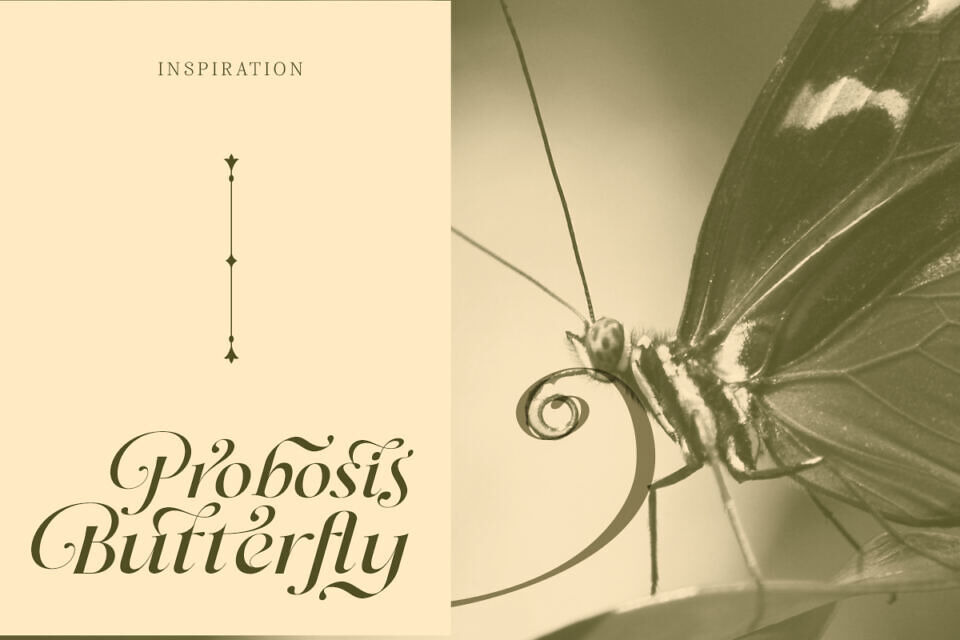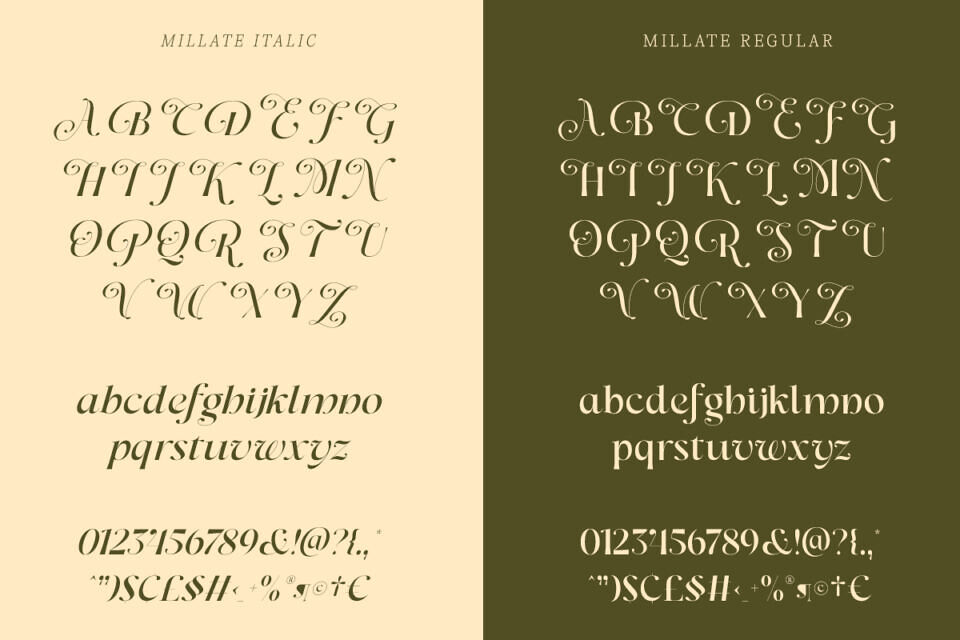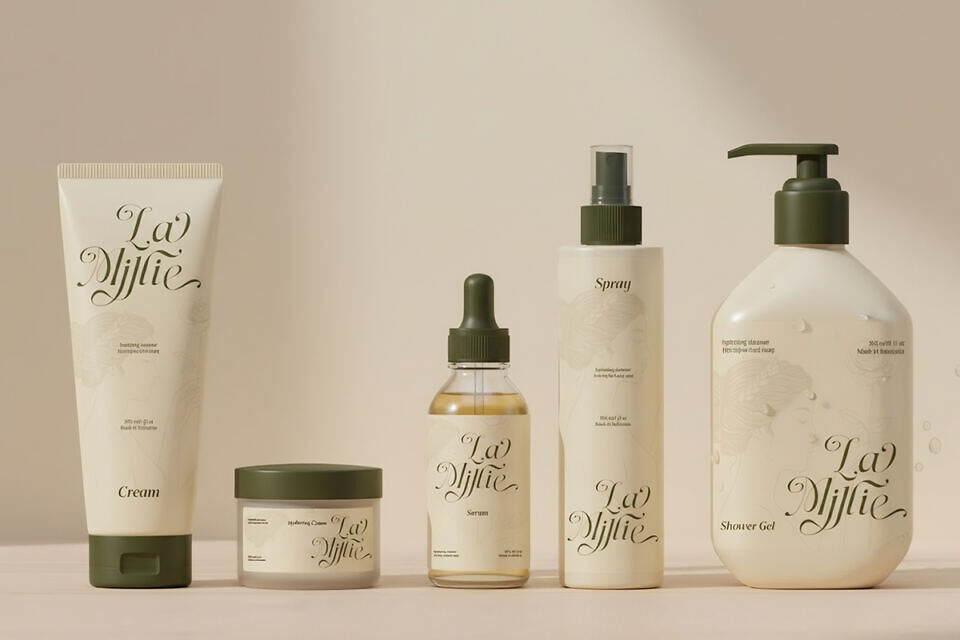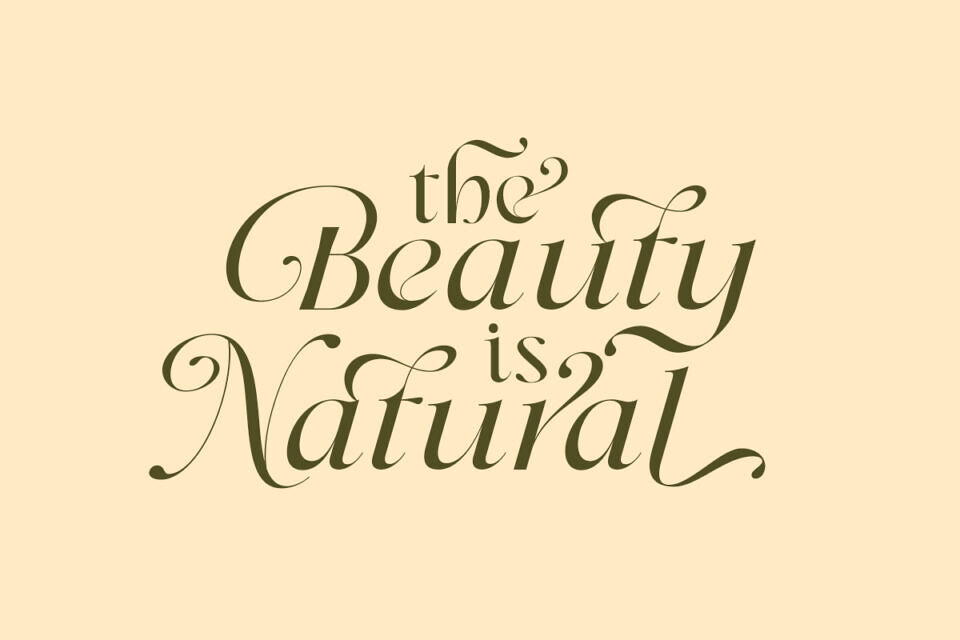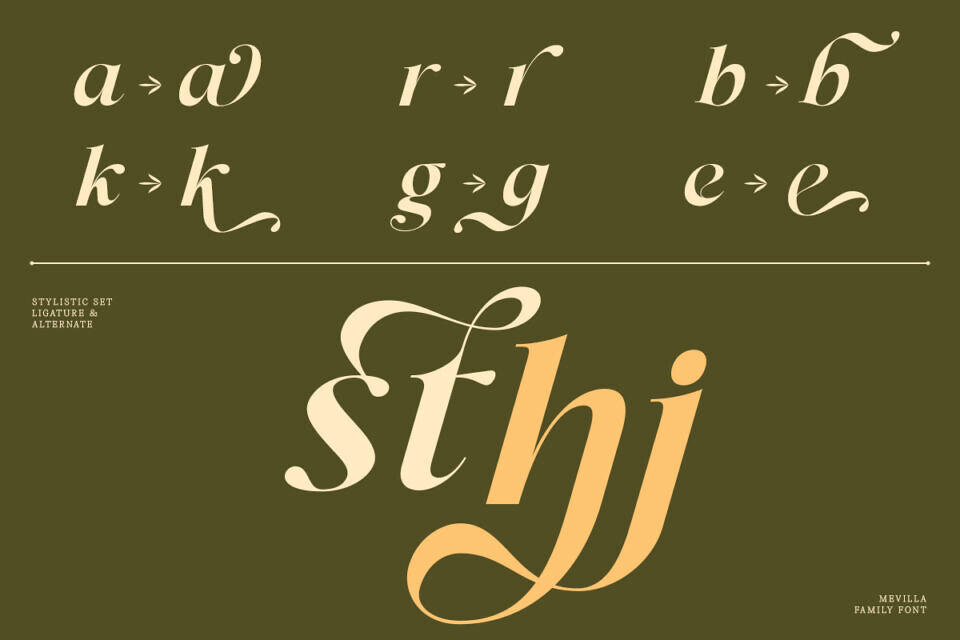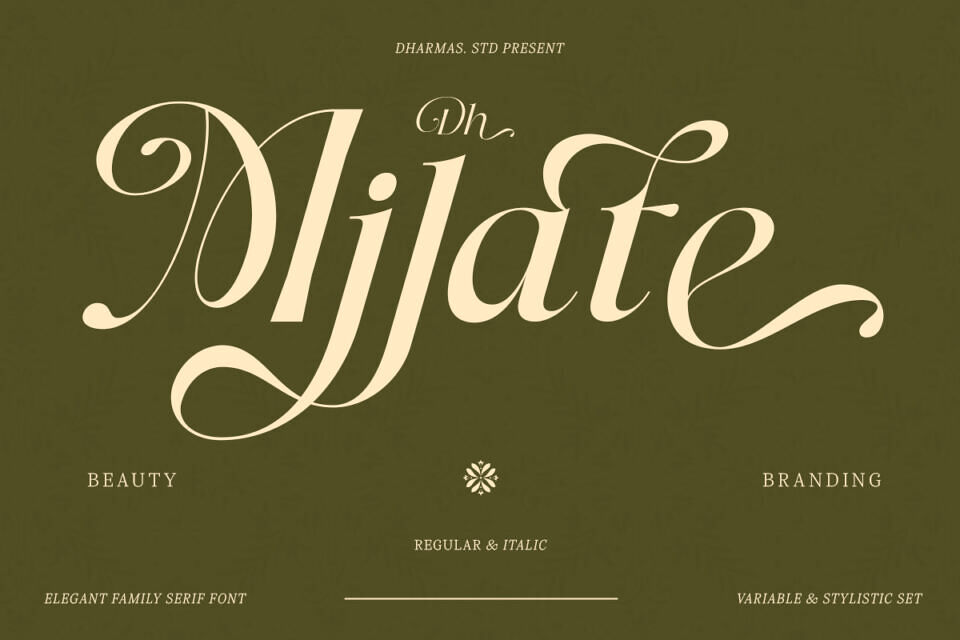
Dh Milate Font
Dh Milate is a beauty-inspired elegant serif family crafted with smooth curves, graceful contrast, and a naturally refined aesthetic. Designed for modern branding, cosmetic packaging, editorial layouts, and premium lifestyle visuals, this typeface brings a soft, feminine, and sophisticated character to any project.
Featuring 90+ exquisite ligatures and alternates, Dh Milate offers expressive flourishes perfect for beauty branding, elegant packaging, wedding designs, logo typography, botanical themes, and editorial headlines.